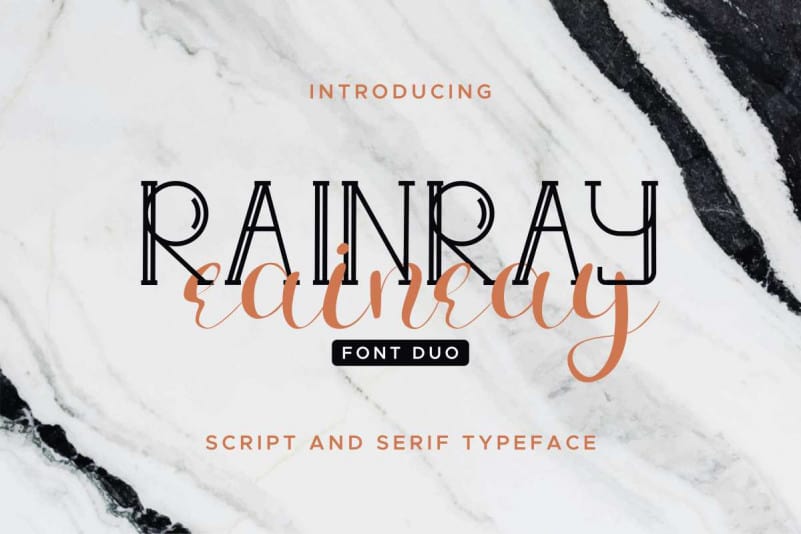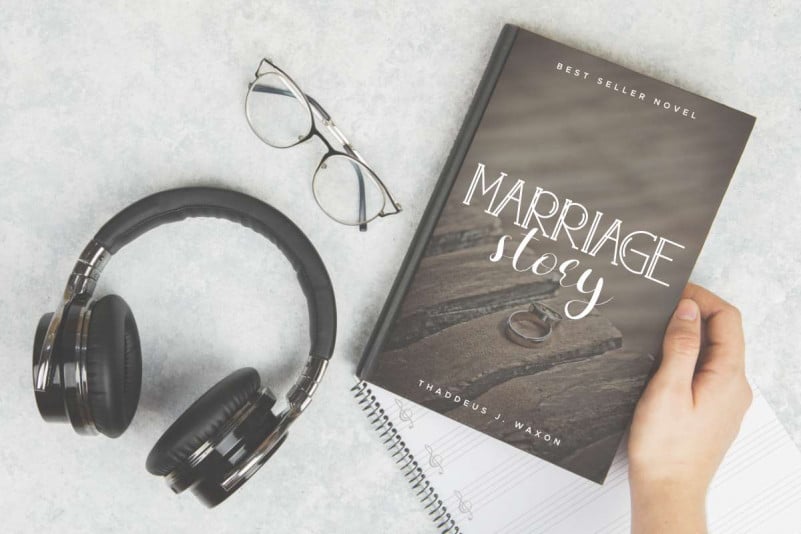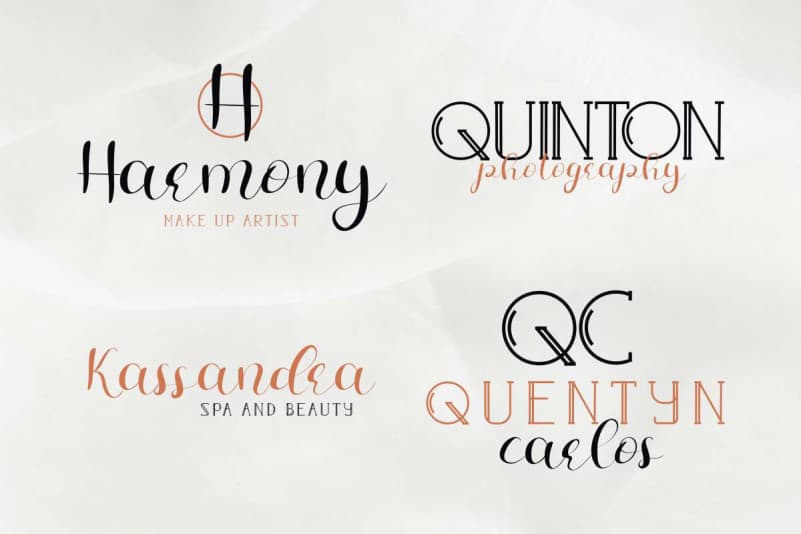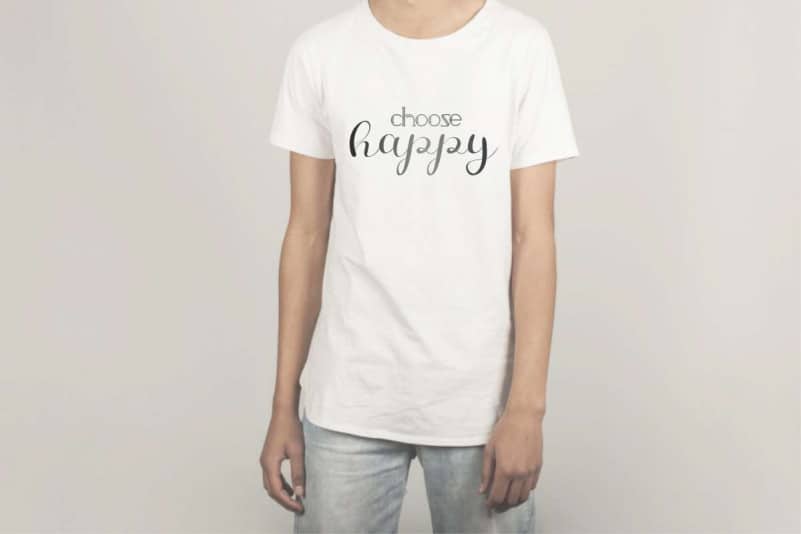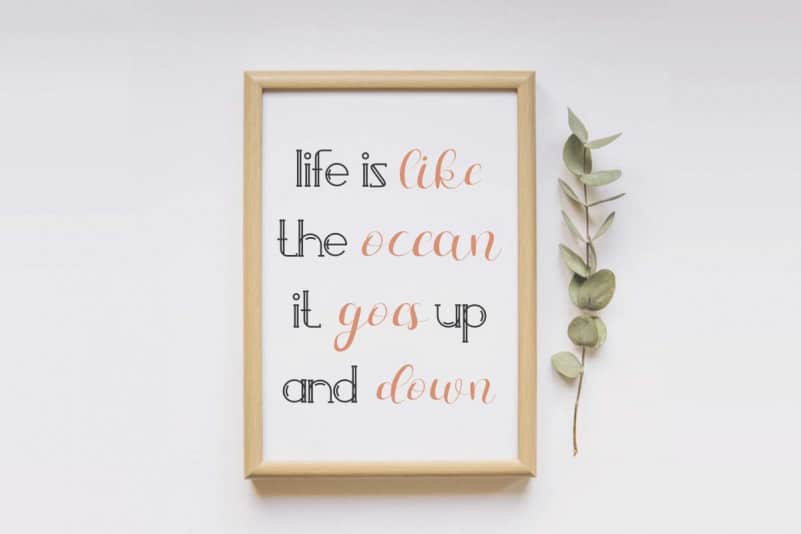
Rainray Font Duo
Rainray Font Duo is an exclusive duo typeface with unique and elegant style. The typeface has a stunning characters set, perfectly kerned and spaced. The style character of this font is elegant, stylish, sophisticated, and classic style.
Rainray Font Duo will be great for any projects including : branding, logo, stationery, business card, signage, flyer, brochure etc. Almost all industries will be match for this typeface: wedding, events, real estate, architect, law firm, florist, gardening, makeup artist, travel, hotel, musician etc